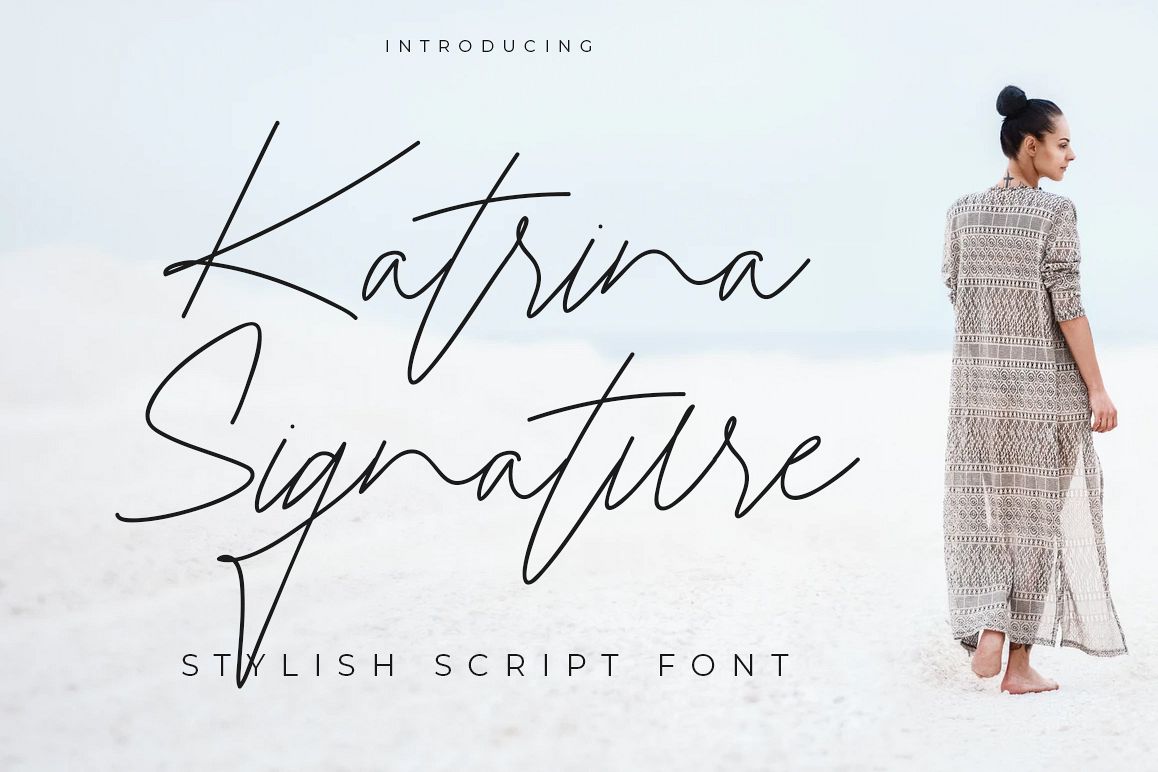
Katrina Signature
KatrinaSignature
Katrina Signature is a handwritten script font with signature natural style, this font is great for your next creative projects such as watermark on photography, quotes, album cover, logo, business card, and many other design project.Katrina Signature comes with uppercase letters, lowercase letters, alternate lowercase letter, numbers and punctuationWhat's included?